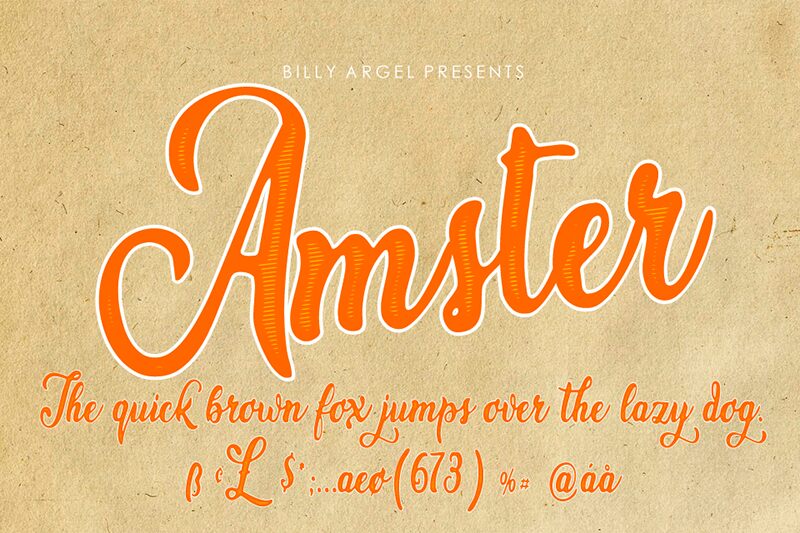
Amster by Billy Argel Fonts is a stunning display font that boasts an eroded script style with a semi-light weight and condensed width. This unique combination of design elements makes Amster the perfect choice for projects that require an edgy, vintage feel. Imagine using Amster on your next album cover, movie poster or even a new clothing line - the possibilities are endless. With its bold yet refined look, this font is sure to make a statement and leave a lasting impression. So why settle for ordinary when you can showcase your creativity with Amster?
PUA encoded, ligatures & stylistics alternates.